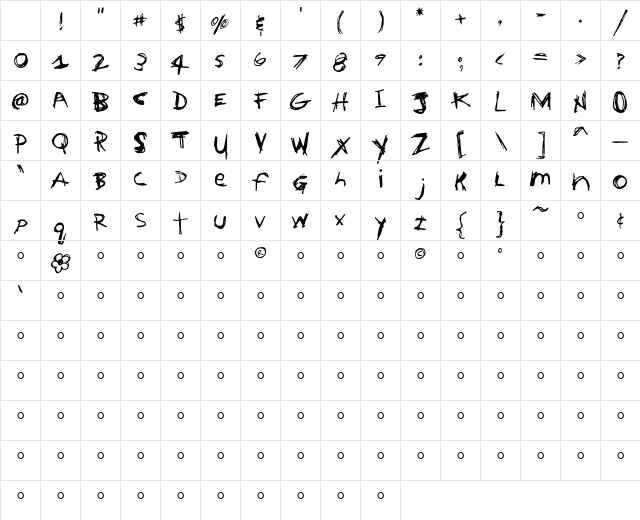
Complete House Trained glyph index. Displaying only characters natively supported by House Trained font.
House is a composed and adaptable typeface that performs quietly and consistently across a wide range of design contexts.